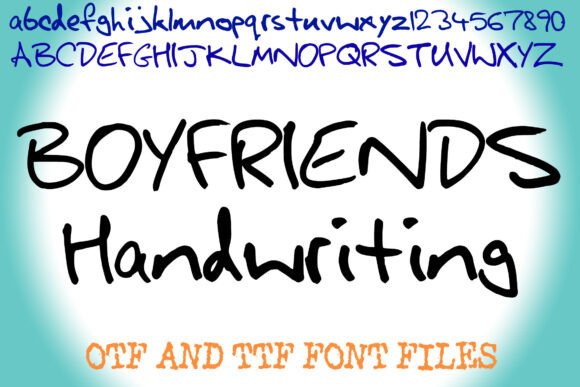
The Charm of Imperfection: Why Designers Adore the Boyfriends Handwriting Font
I still remember the design project that led me to discover the Boyfriends Handwriting Font. I was working on a heartfelt social media campaign for a boutique client, and I needed a font that felt genuine, like a handwritten note from a friend. After hours of scrolling through digital fonts that looked, well, too digital, I stumbled upon this gem. The Boyfriends Handwriting Font was like a breath of fresh air – it was as if someone had taken a pen to paper and captured the authentic, imperfect strokes. I was hooked! 💕
- ✨ Authentic Handwriting Origin: This font is derived from real pen-on-paper strokes, giving it a sincerely human feel.
- ✅ Perfectly Imperfect: The irregular strokes and natural rhythm replicate the charm of a quick note or journal entry.
- 💻 Versatile Casing: Includes both lowercase and uppercase characters for a realistic writing flow.
While the Boyfriends Handwriting Font is incredibly versatile, there are a few minor things to keep in mind:
- ⚠️ Legibility at Small Sizes: Like many handwritten fonts, it may lose legibility at very small sizes. It’s best used at larger sizes or for short texts.
- 🤔 Glyph Limitations: While it includes a range of characters, it might not have every special character or glyph you need for specific projects.
The Designer Inspiration Behind the Boyfriends Handwriting Font
The Boyfriends Handwriting Font was created with a simple yet powerful idea in mind: to capture the essence of real handwriting. The designer, inspired by the intimacy of handwritten notes, sought to create a font that felt like it was written just for you. Through meticulous attention to detail, they ensured that every curve, loop, and connection felt genuinely human.
Q: Is the Boyfriends Handwriting Font suitable for body text?
A: While it’s primarily designed for display or short texts, its legibility at smaller sizes might be limited. It’s best used for headings or short paragraphs.
Q: Does the font include special characters or glyphs?
A: Yes, it includes a range of characters and some special glyphs. For specific needs, you might need to explore additional resources or alternatives.
The Boyfriends Handwriting Font brings a level of authenticity to your designs that’s hard to replicate with standard typefaces. Its unique blend of imperfection and legibility makes it perfect for designers, crafters, and creative hobbyists looking to add a personal touch to their work. Whether you’re crafting social media quotes, personalized planners, or boutique branding, this font is sure to bring your designs to life.